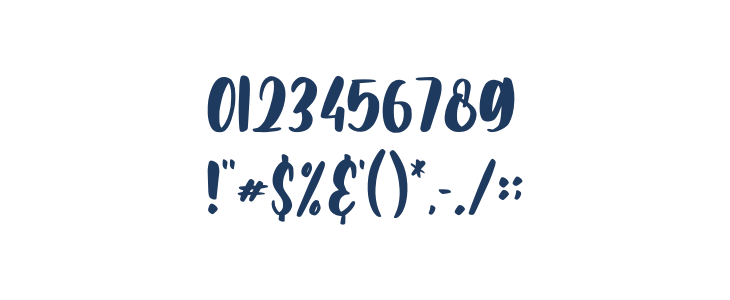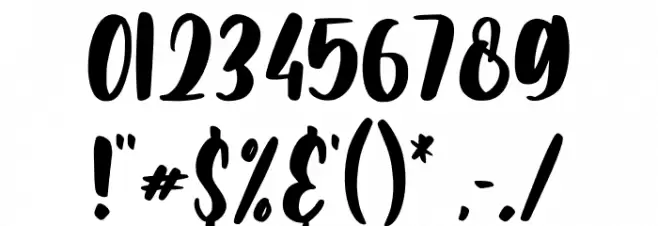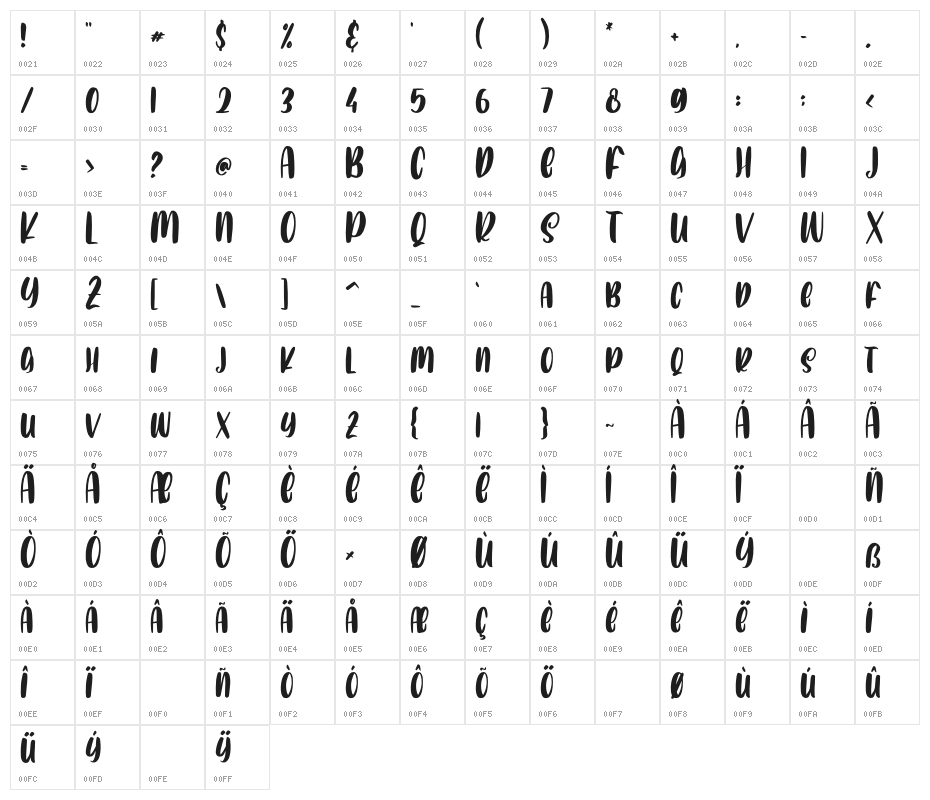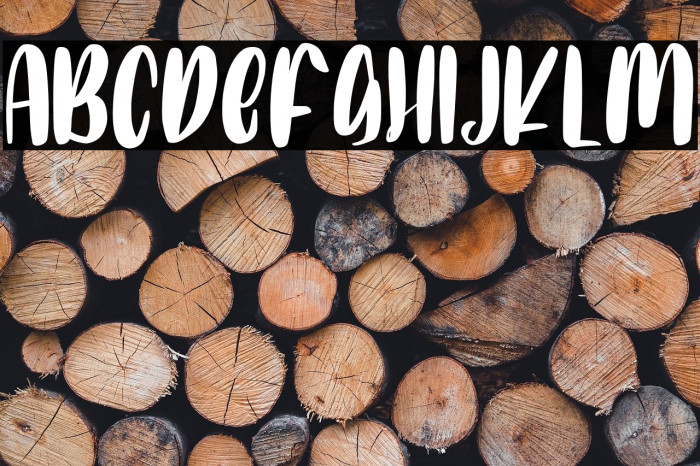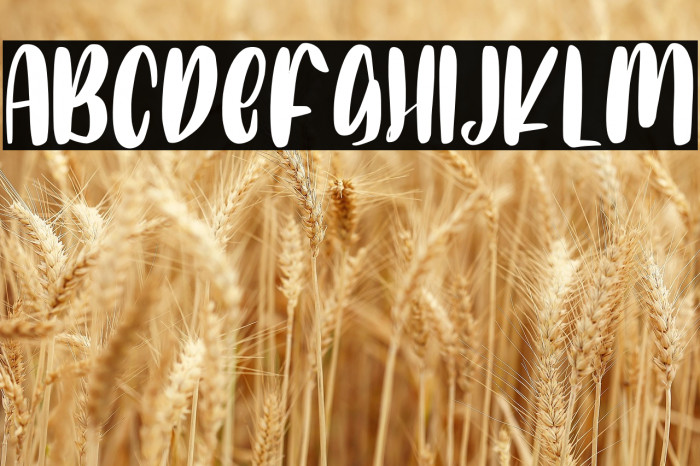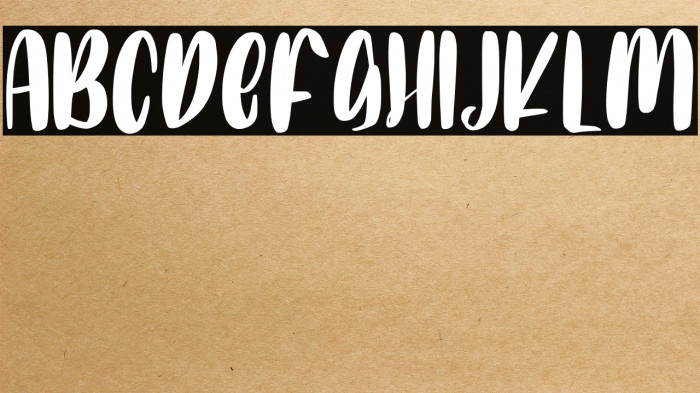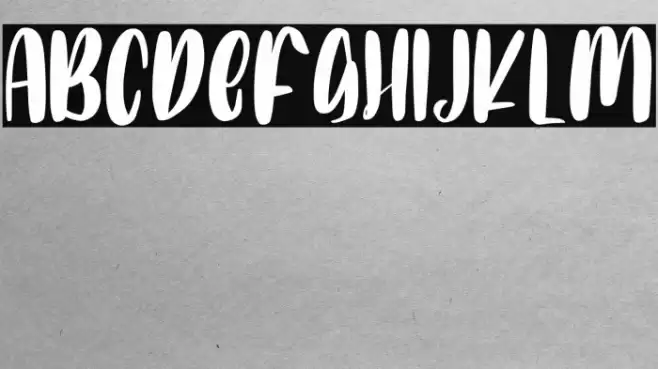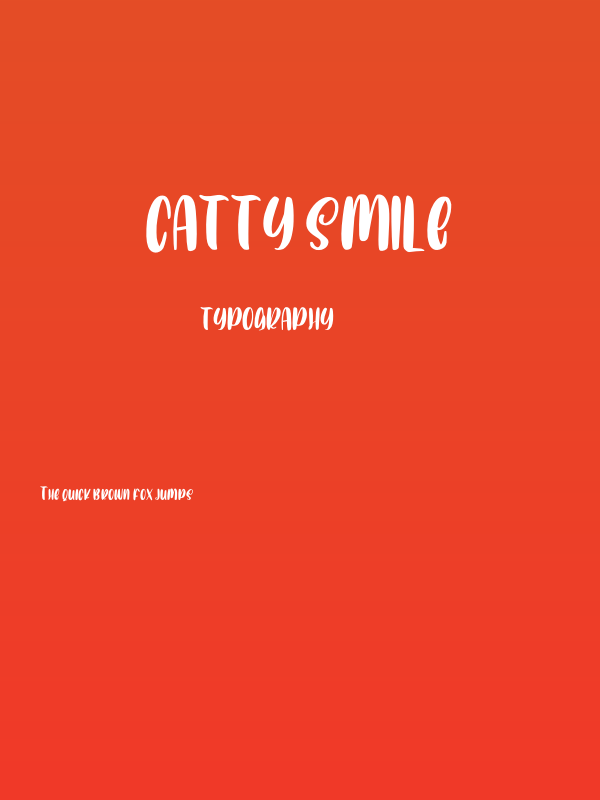
Catty Smile Font
Catty Smile Description
This font features a bold and playful script style with a handwritten feel. The characters are thick and rounded, giving a sense of warmth and friendliness. The uppercase and lowercase letters flow smoothly with a consistent stroke width, creating a cohesive look. The numbers and special characters maintain the same playful aesthetic, making them suitable for a variety of design purposes. The overall appearance is lively and energetic, perfect for projects that require a touch of personality and charm.
| Overall Style | Playful, Energetic |
| Proposed Projects | Ideal for greeting cards, playful branding, social media graphics, and children's book covers. |